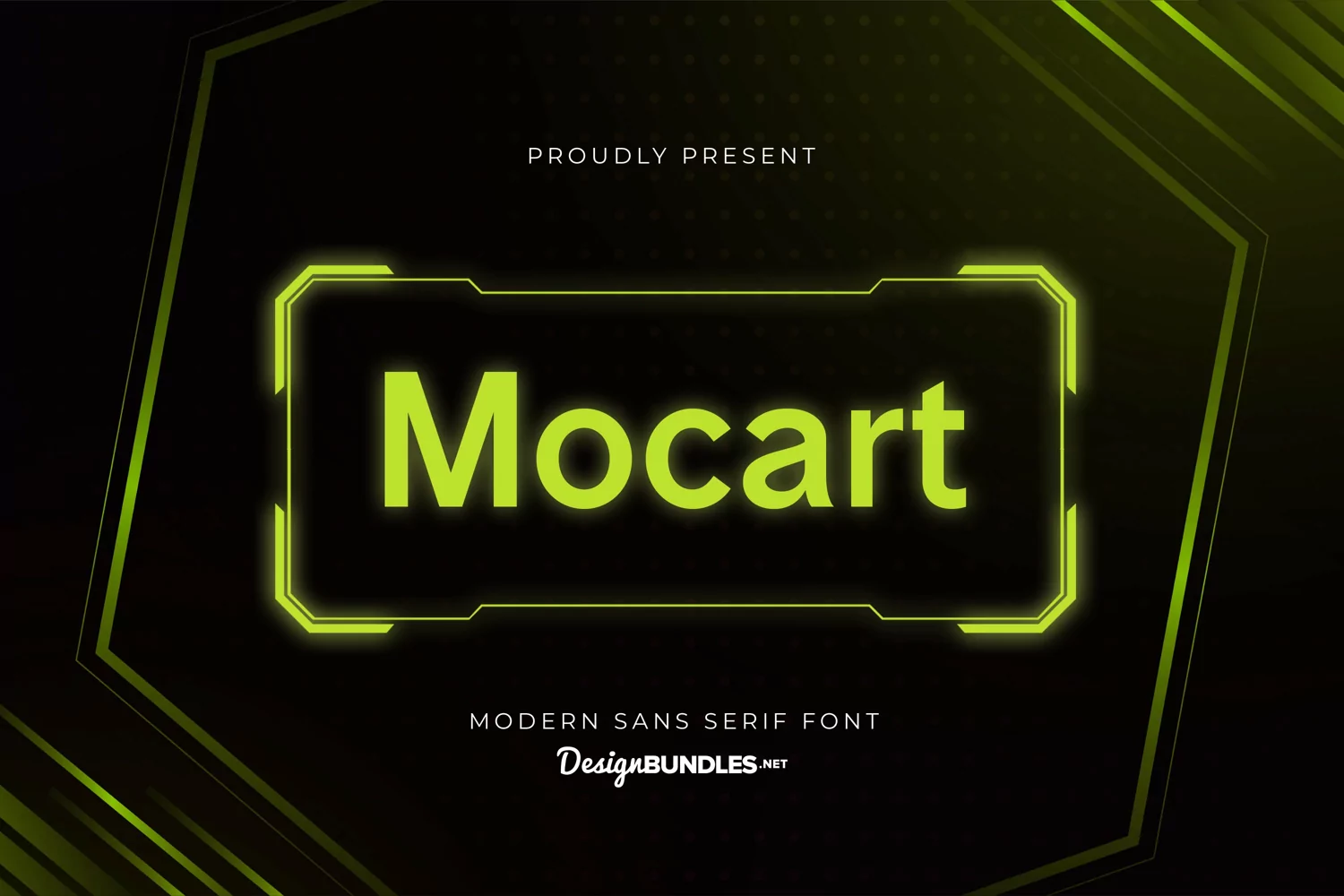
Mocart - Modern Sans Serif Font it matches applies in some designs such as the logotype, brand, packaging, quotes, poster, t-shirt, invitation and more custom design. The features uppercase, lowercase, numeral, punctuation & symbol, multilingual support.rush
Mocart